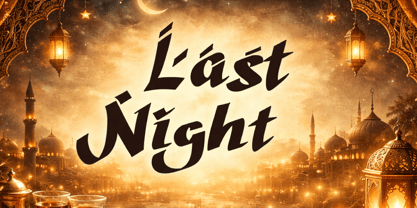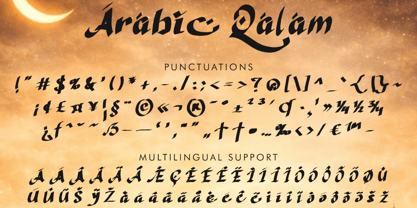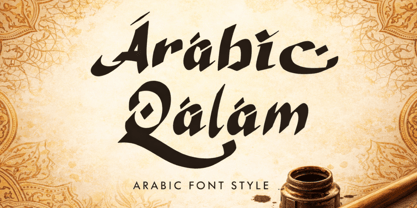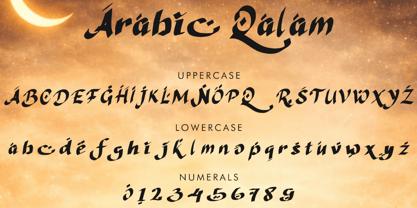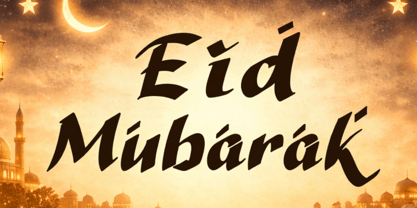
Arabic Qalam
by Yoga Letter
The Arabic Qalam Font Family was designed by Isroni Yoga Prasetya and published by Yoga Letter. Arabic Qalam contains 1 styles. More about this family
"Arabic Qalam" is an elegant and unique Arabic font. It features uppercase and lowercase letters, numerals, punctuations, and multilingual support. It's perfect for Eid greetings, invitations, business branding, social media ads, banners, posters, branding, stickers, prints, logos, movie titles, book titles, comics, cartoons, magazine, holiday, and more.
Designers: Isroni Yoga Prasetya
Foundry: Yoga Letter